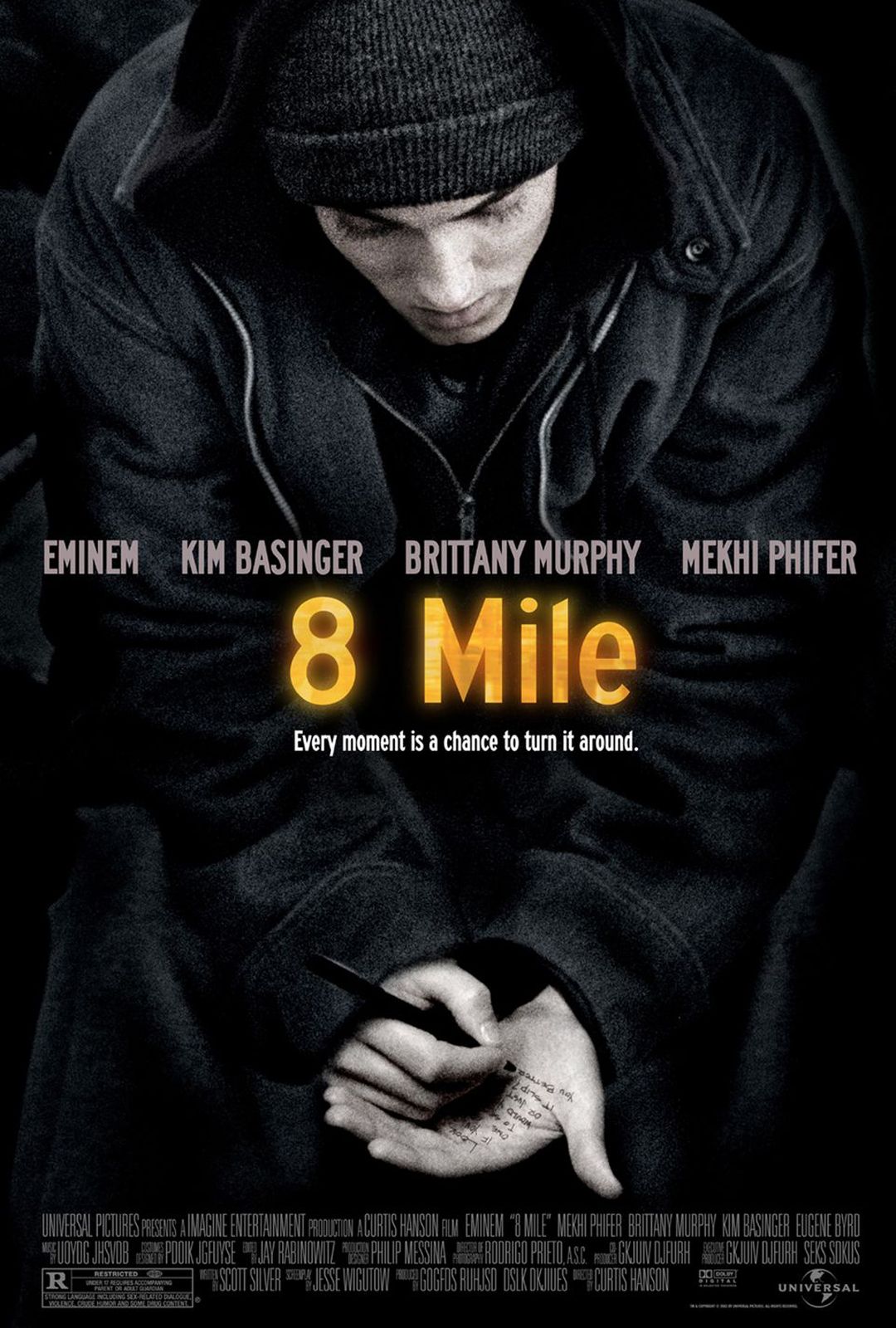
Drama8 Mile is a 2002 drama film directed by Curtis Hanson and starring Eminem, depicting the rapper's rise to fame in Detroit's underground hip-hop scene. The film is loosely based on Eminem's own life and features an Academy Award-winning original song, "Lose Yourself."
The film title on the poster is presented in a font that closely resembles Interstate Condensed Regular, which is a sans-serif typeface created by Tobias Frere-Jones. You can view and download the font here.